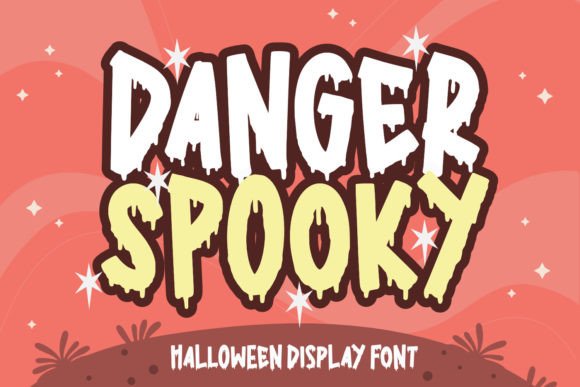
Danger Spooky Font: The Melting Characters that Bring Spine-Chilling Halloween Vibes
As the spookiest time of the year approaches, designers and creatives are on the lookout for unique and captivating elements to add to their Halloween-themed projects. One such element that has been making waves in the design community is the “Danger Spooky” font. This font features characters that appear to be melting, creating a surreal and nightmarish aesthetic that’s perfect for bringing a spine-chilling effect to Halloween displays.
The Unique Features of the Danger Spooky Font
The “Danger Spooky” font is unlike any other font out there. Its distinctive feature is the melting effect that its characters seem to have, as if they’re being warped and distorted by some unseen force. This creates a sense of unease and tension, making it perfect for Halloween-themed designs.
The font’s design is reminiscent of a surrealist’s dream, where the laws of physics no longer apply, and the ordinary becomes extraordinary. The melting characters seem to defy gravity, twisting and turning in impossible ways, creating a sense of visual dissonance that’s both captivating and unsettling.
Design Inspiration: Using the Danger Spooky Font in Your Projects
The “Danger Spooky” font offers endless possibilities for designers looking to create unique and captivating Halloween-themed designs. Here are a few ideas to get you started:
- Halloween Posters and Flyers: Use the “Danger Spooky” font to create eye-catching posters and flyers for Halloween events, such as haunted houses, costume parties, or horror movie screenings.
- Social Media Graphics: Add a touch of spookiness to your social media graphics, such as Instagram posts, Facebook event covers, or Twitter headers, using the “Danger Spooky” font.
- Website Headers: Create a spine-chilling effect on your website’s header by using the “Danger Spooky” font, perfect for Halloween-themed websites or blogs.
Typography Tips: Getting the Most Out of the Danger Spooky Font
To get the most out of the “Danger Spooky” font, here are some typography tips to keep in mind:
- Experiment with Font Sizes: Play around with different font sizes to create visual interest and emphasize certain words or phrases.
- Use Contrasting Colors: Use contrasting colors to make the melting characters stand out, creating a bold and eye-catching effect.
- Combine with Other Fonts: Combine the “Danger Spooky” font with other fonts to create a unique and visually appealing typography combination.
Examples of the Danger Spooky Font in Action
Here are some examples of how the “Danger Spooky” font can be used in different design contexts: